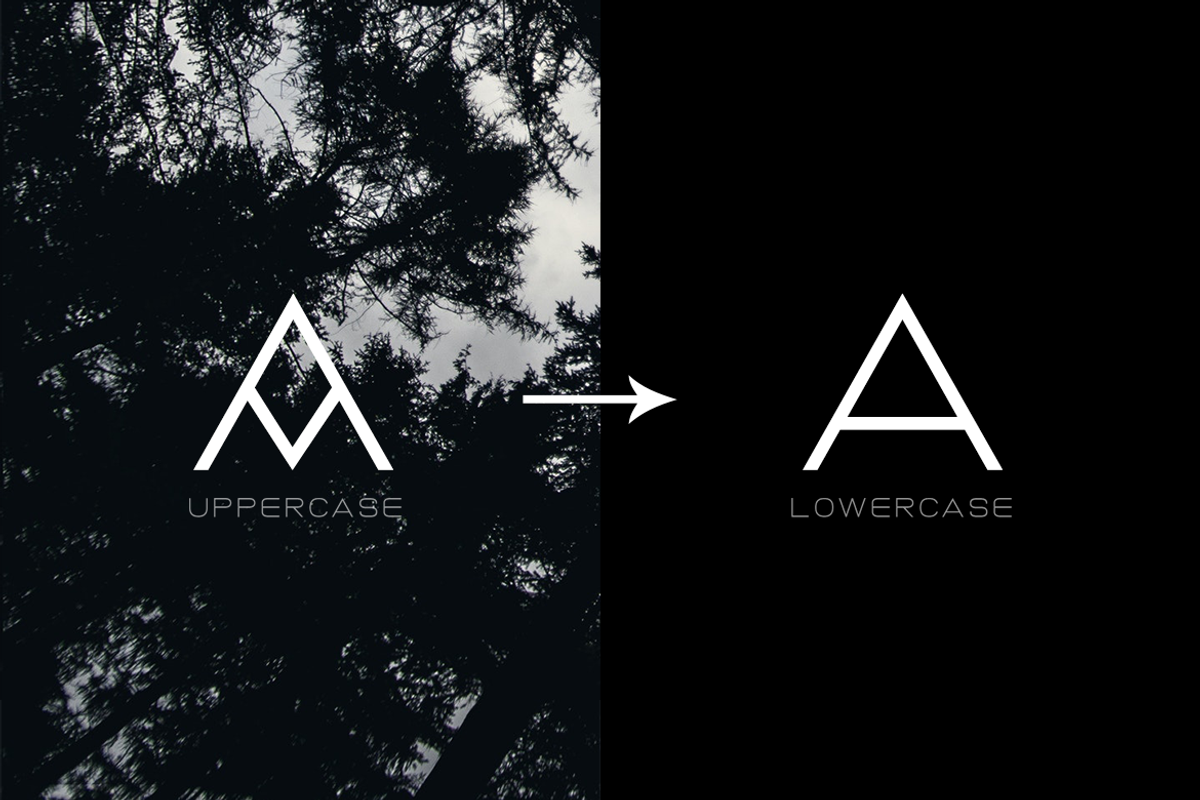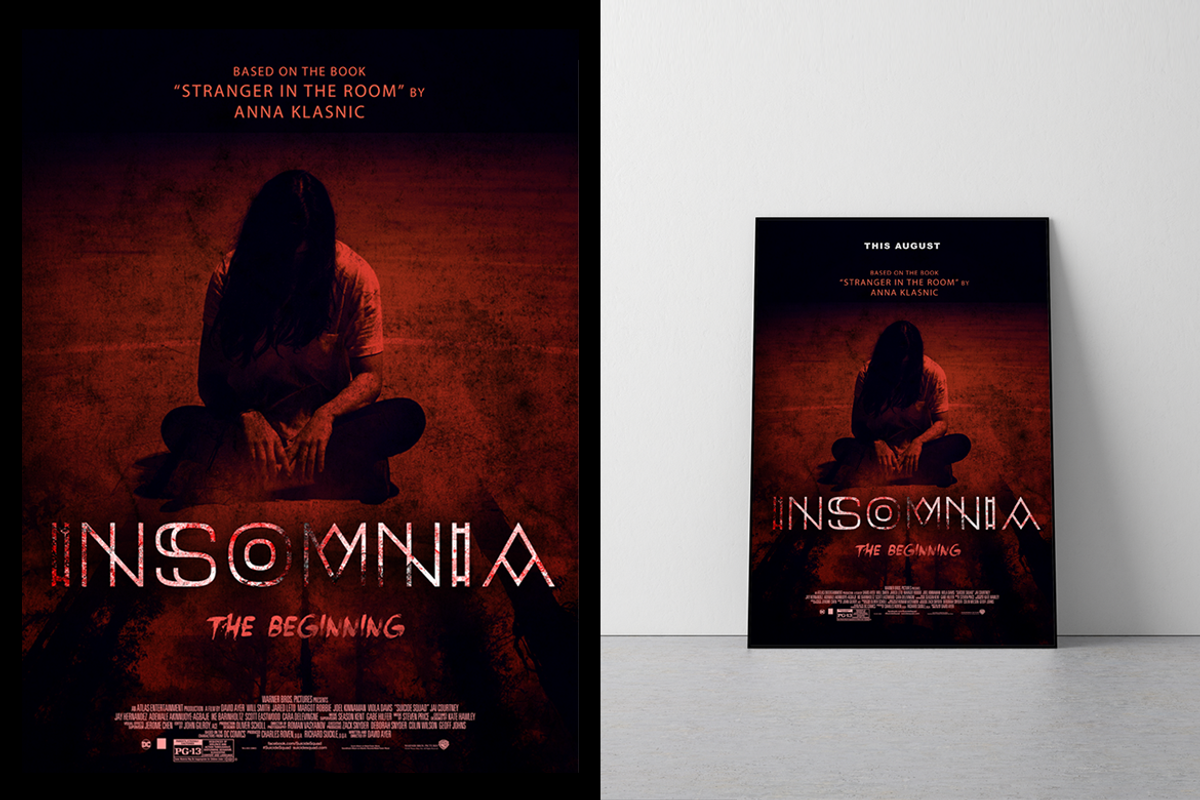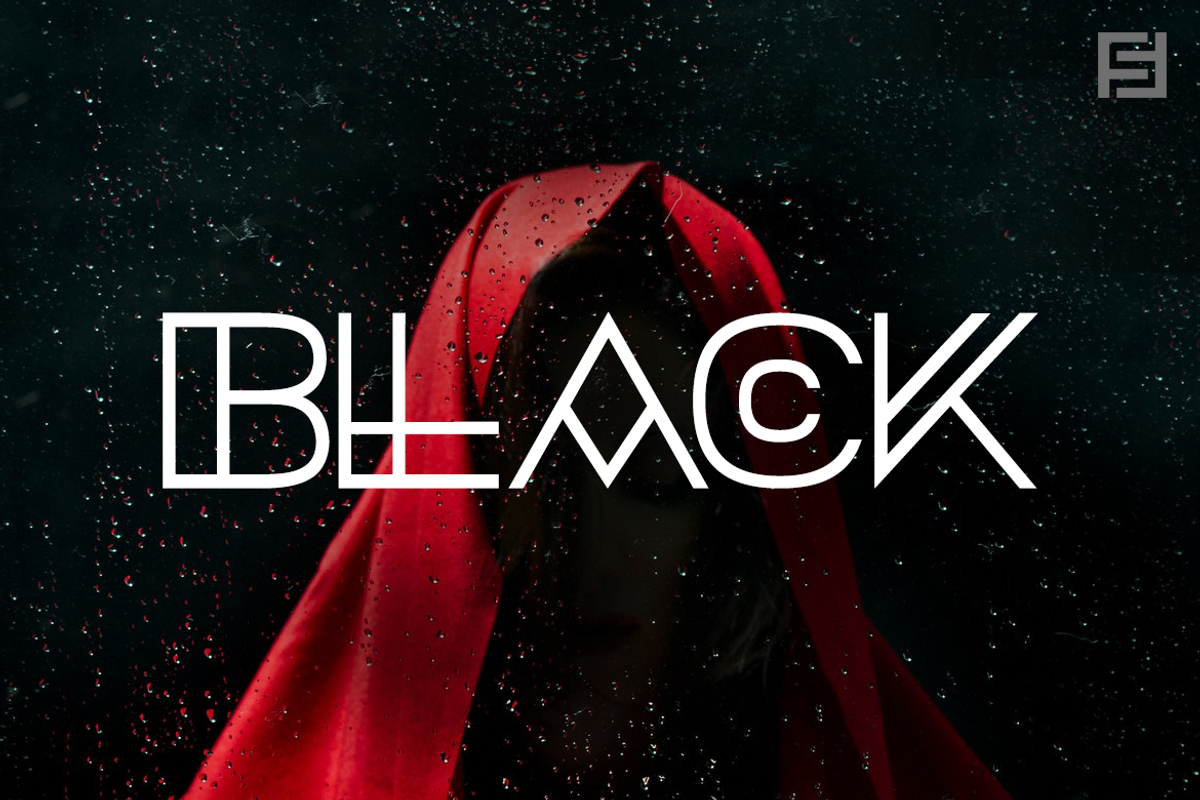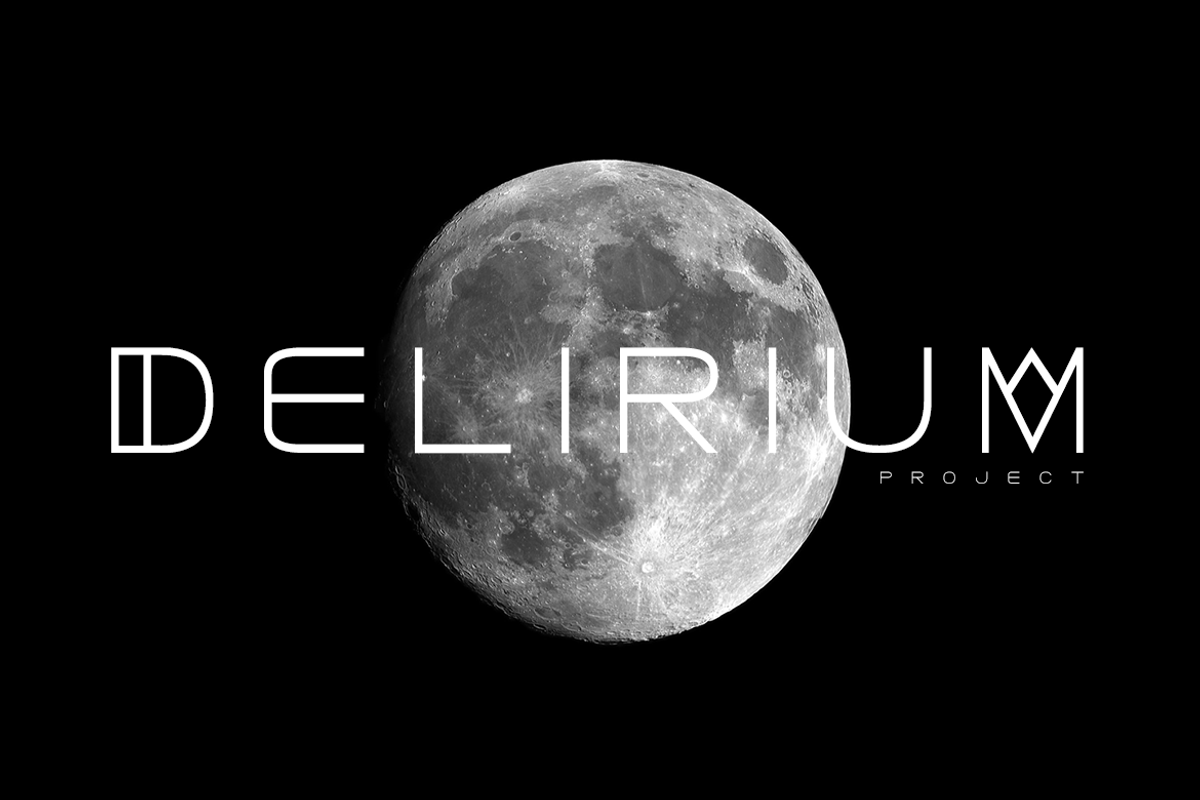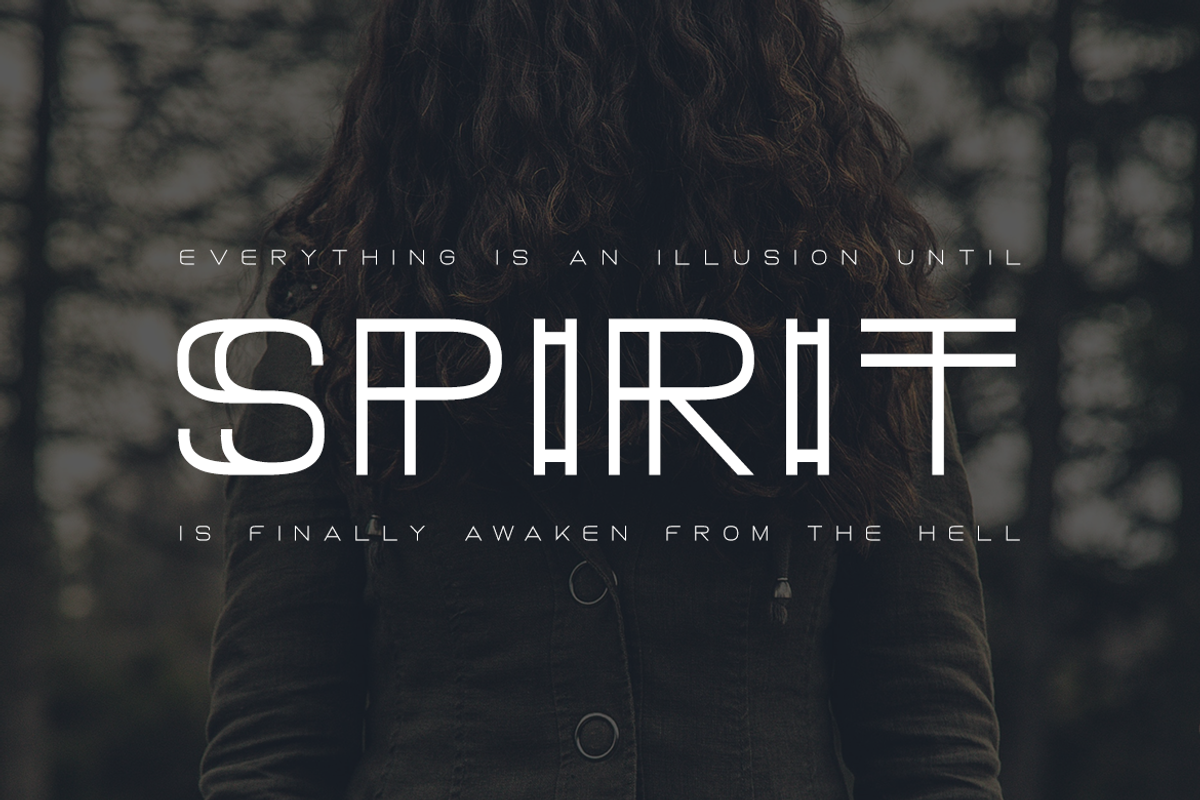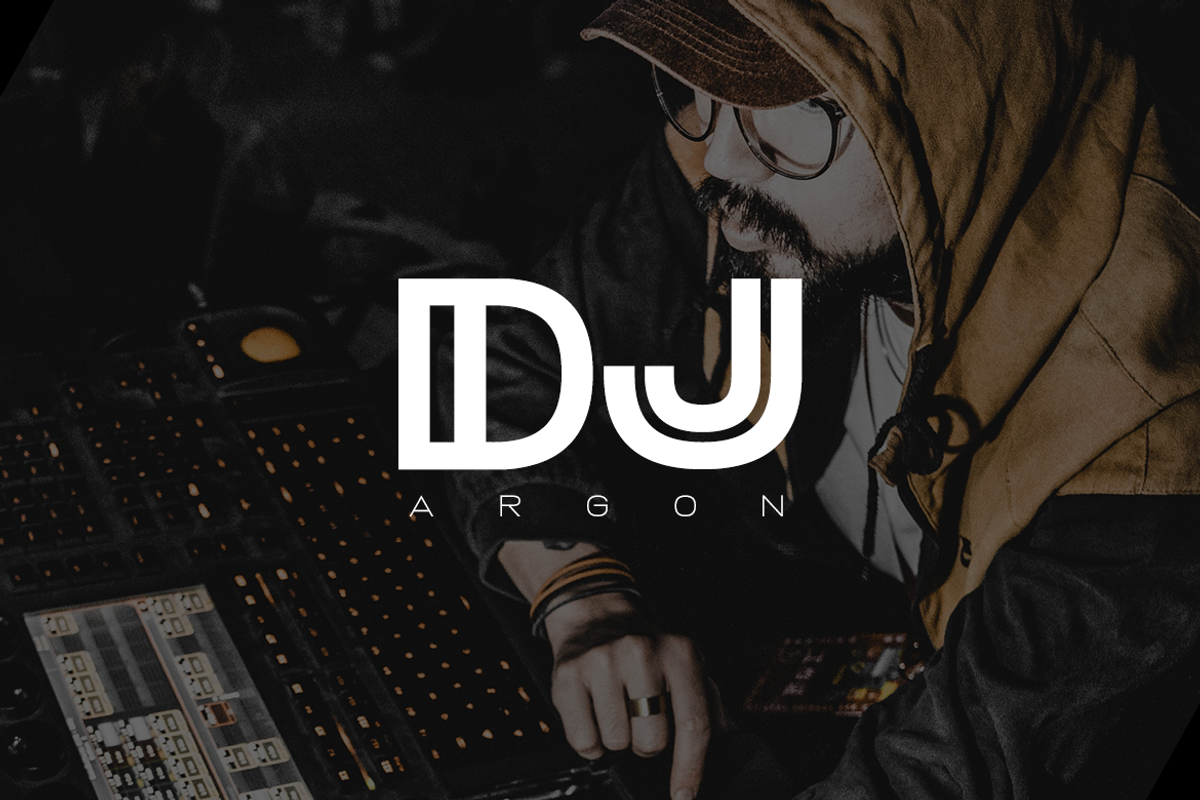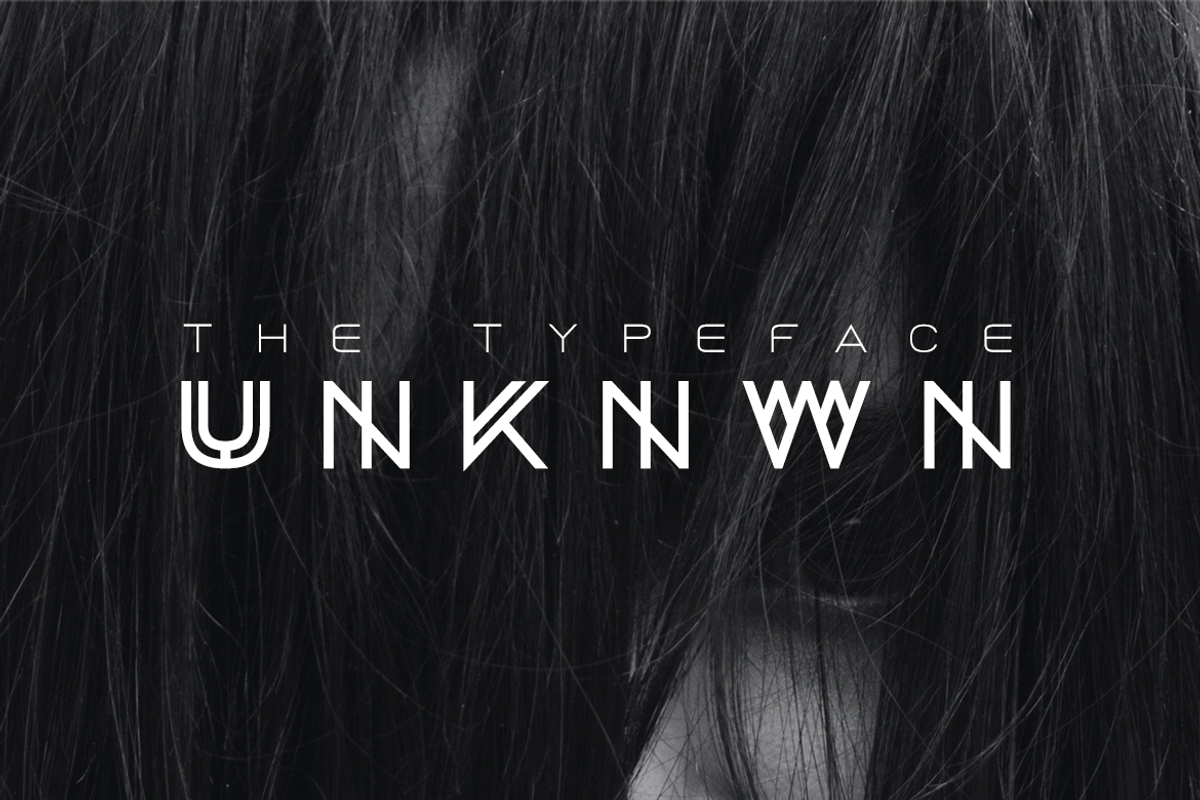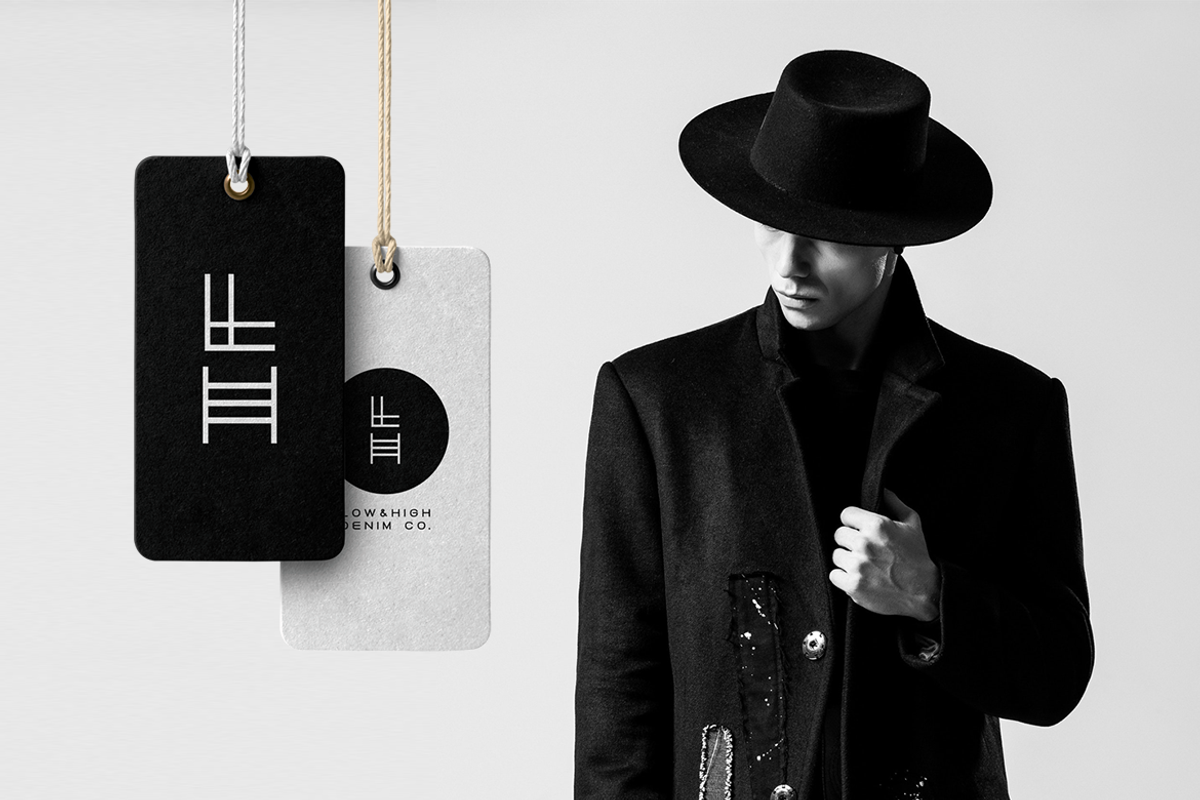
BLACK - Mysterious / Hybrid Typeface
BLACK - A typeface born at midnight. A typeface that crawls to the darkness. A typeface with split-personality. A typeface that can conjure the UNKNWN.
BLACK is a hybrid / mysterious typeface with a true uniqueness of it's own. This all caps typeface has two different nature: the uppercase is defined by rare dimensions while the lowercase is purely simple & minimal. This typeface is perfectly suitable for anything that needs to stand out from crowd, be it some Ultra Modern Branding, Techno or Cosmic Themed Designs, Haunted Movie Posters, Mysterious Arts and even the Minimal Stuffs.
The typeface could be perfect choice for logo / logotype design, branding, marketing graphics, banners, posters, signage, corporate identities as well as for editorial design that can bring uniqueness. Please see the examples shown above to get an idea about the capability of this typeface.
Handcrafted and designed with powerful OpenType features in mind, each weight includes extended language support including Western European & Central European sets.